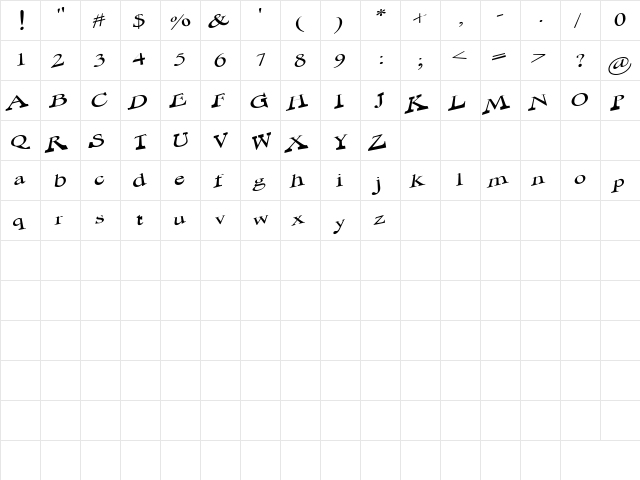
No Control Regular Font Preview
No Control Regular
No Control Regular Font Details
Design Context for No Control Typeface
No Control is a composed and adaptable typeface that performs quietly and consistently across a wide range of design contexts.